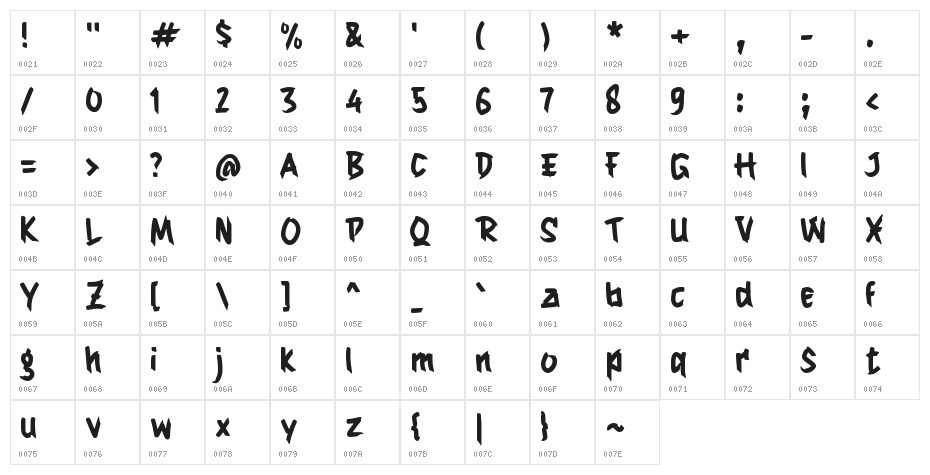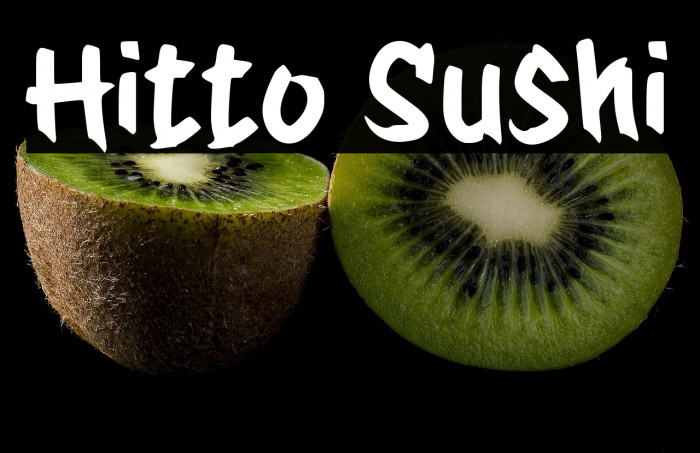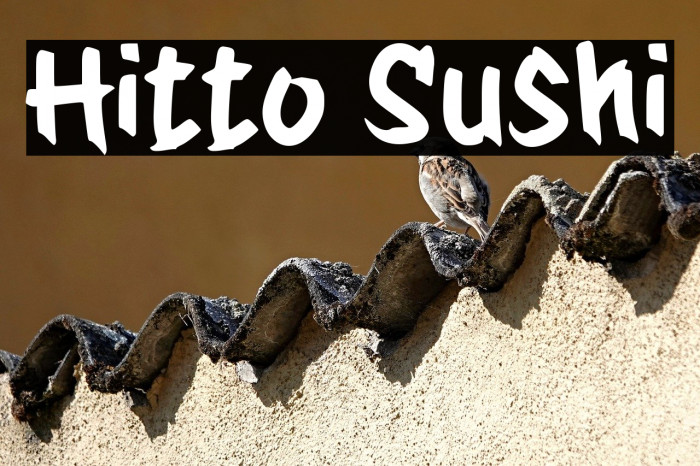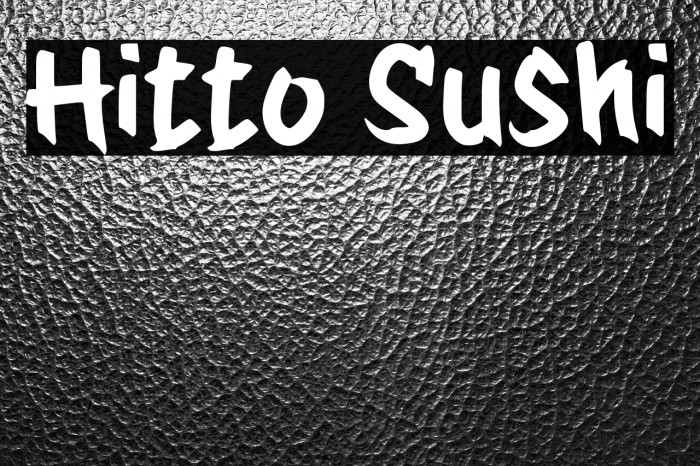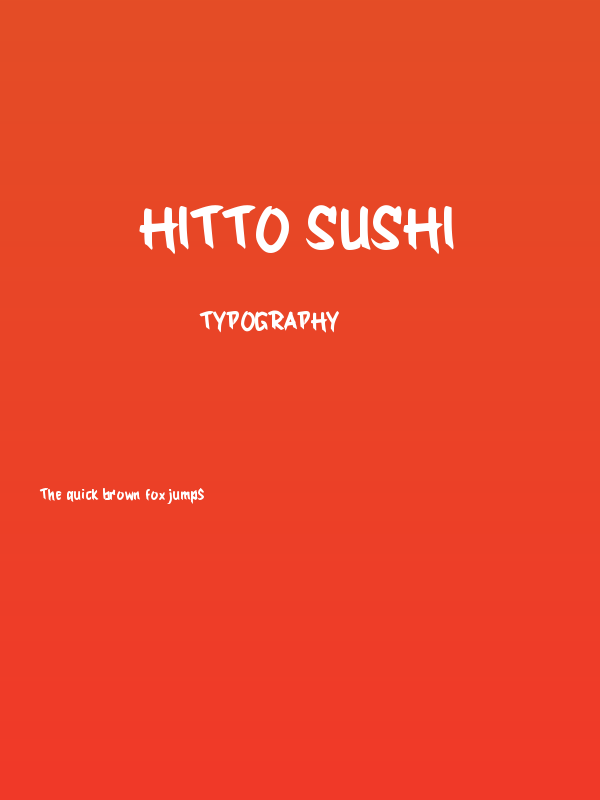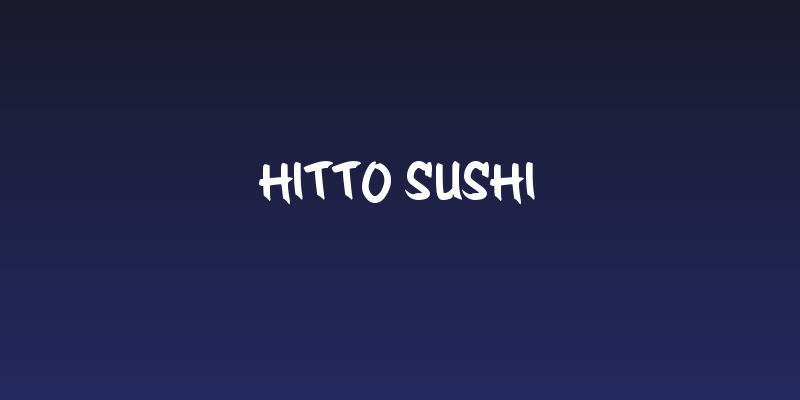
This font features a bold and dynamic style with a hand-drawn appearance, characterized by its thick strokes and slightly irregular shapes. The uppercase and lowercase letters maintain a consistent weight, giving a cohesive look across the alphabet. The numbers and special characters follow the same bold and expressive design, making them stand out. The overall aesthetic is playful and energetic, suitable for projects that require a touch of creativity and informality. The font's unique style can add a distinctive flair to any design, making it memorable and eye-catching.
Proposed ProjectsIdeal for posters, branding, packaging, and creative projects that require a bold statement.